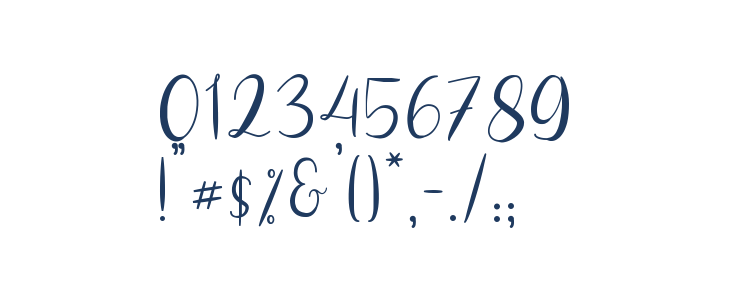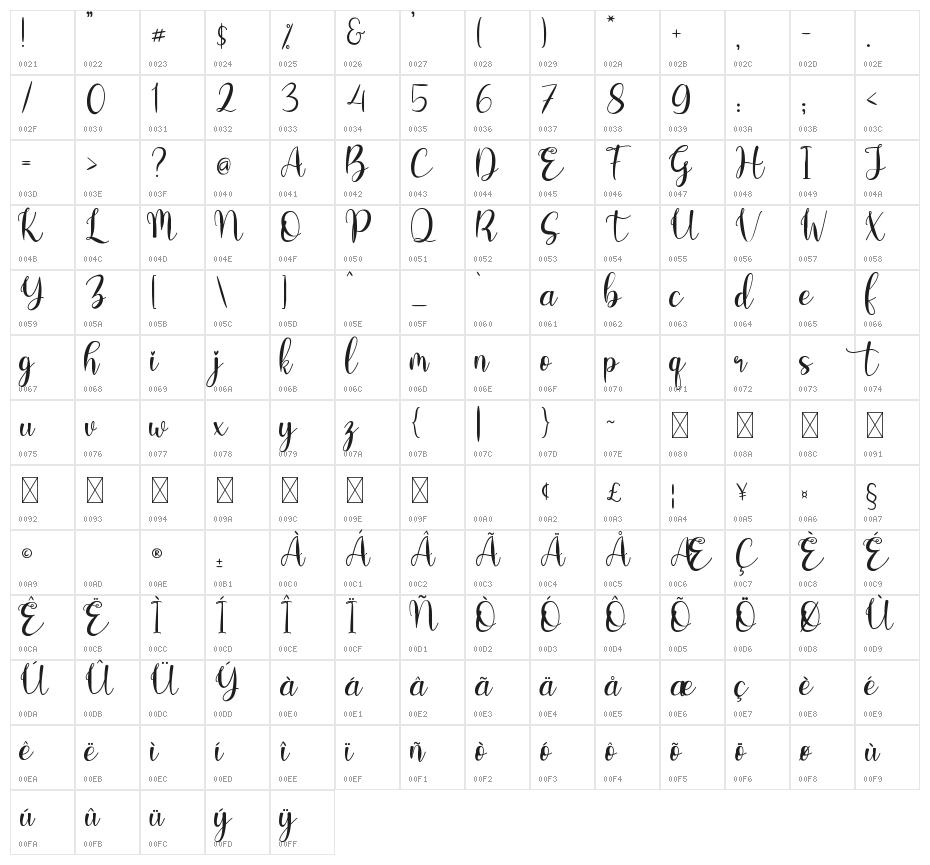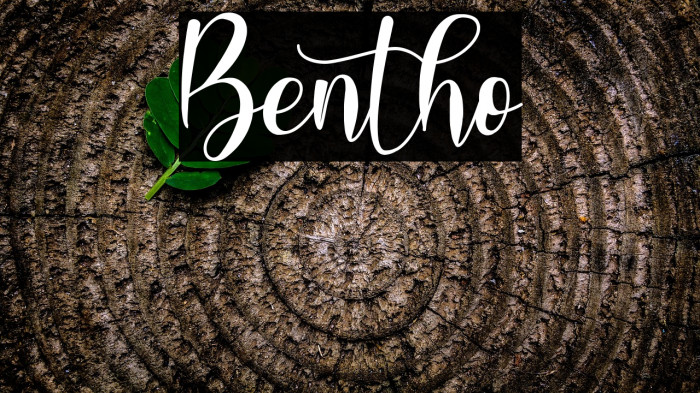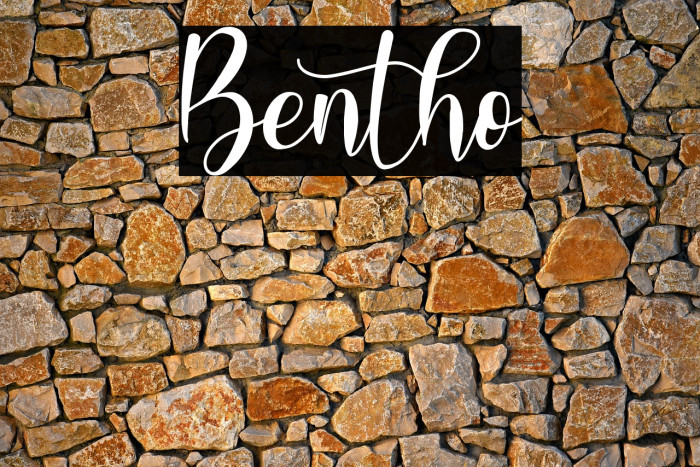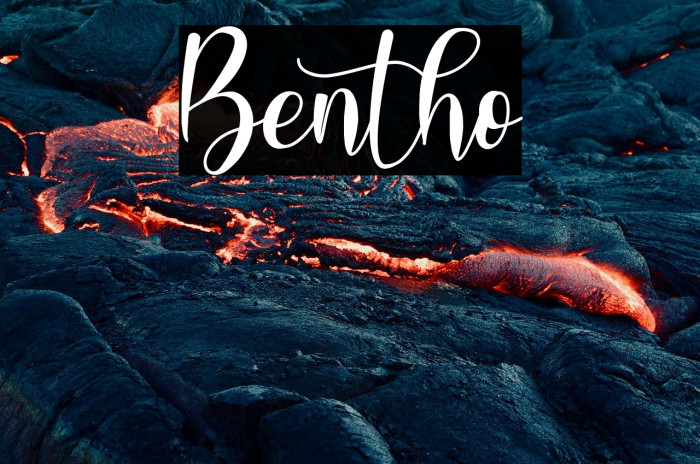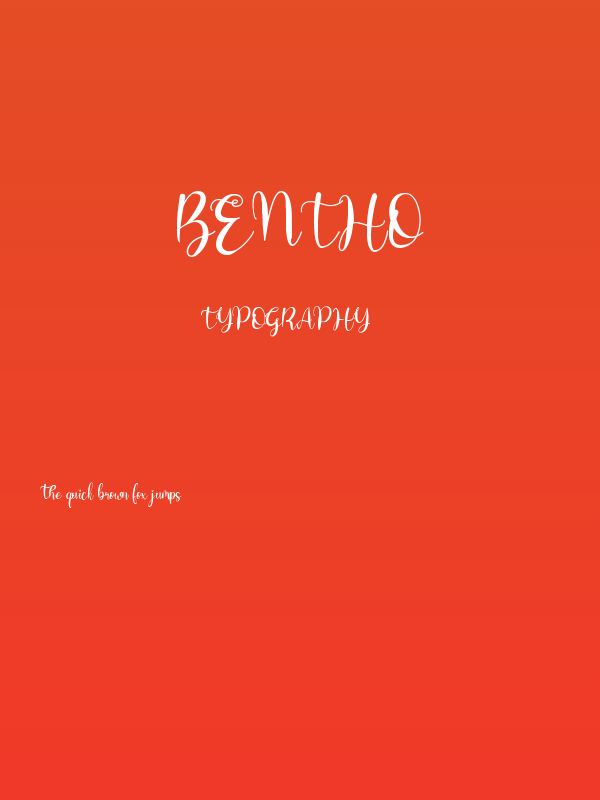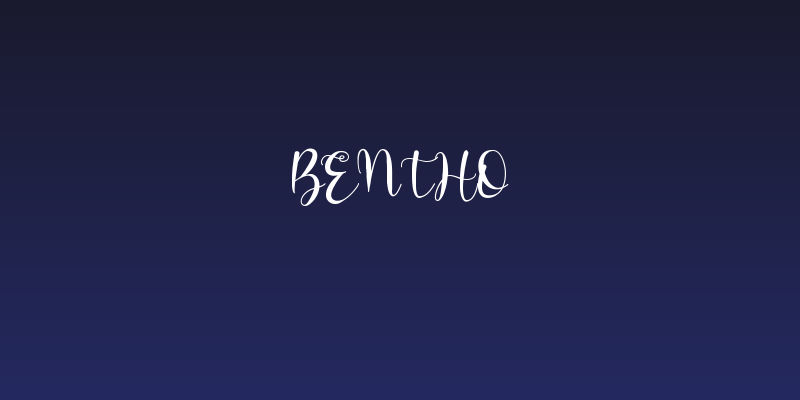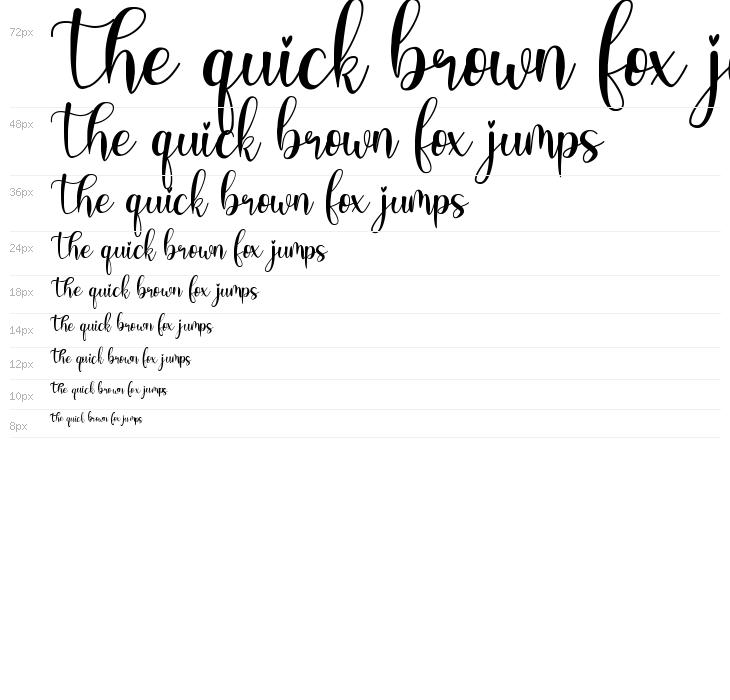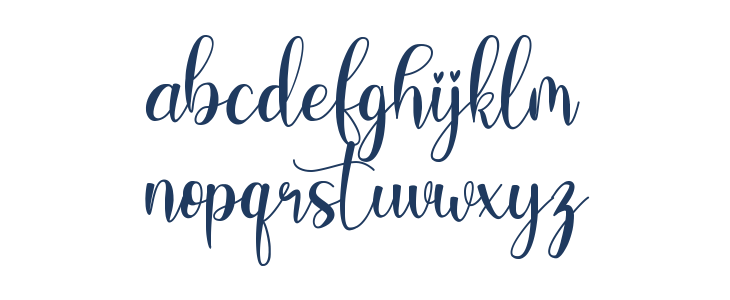
Bentho Font
This font features a flowing, cursive style with elegant loops and swashes that give it a sophisticated and artistic appearance. The uppercase letters are bold and expressive, with a unique flair that adds character to each letterform. The lowercase letters maintain a consistent flow, enhancing readability while retaining a stylish look. Numbers and special characters are designed with the same attention to detail, ensuring a cohesive appearance across all glyphs. The font's overall design is both modern and timeless, making it suitable for a variety of creative applications.
| Overall Style | Elegant, Artistic |
| Use Case | Logos, Invitations, Decorative text |
| Proposed Projects | Ideal for wedding invitations, branding, greeting cards, and elegant packaging designs. |